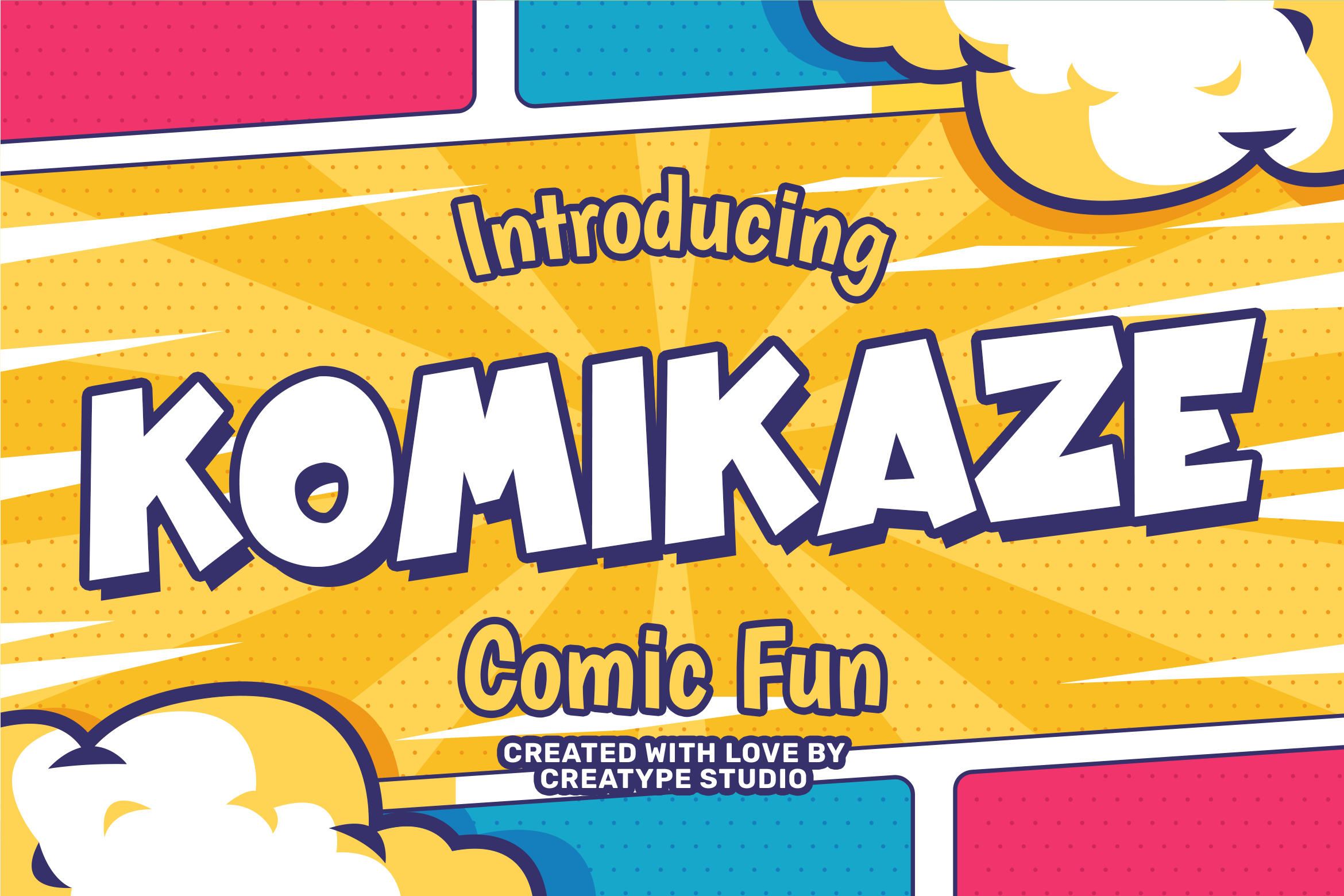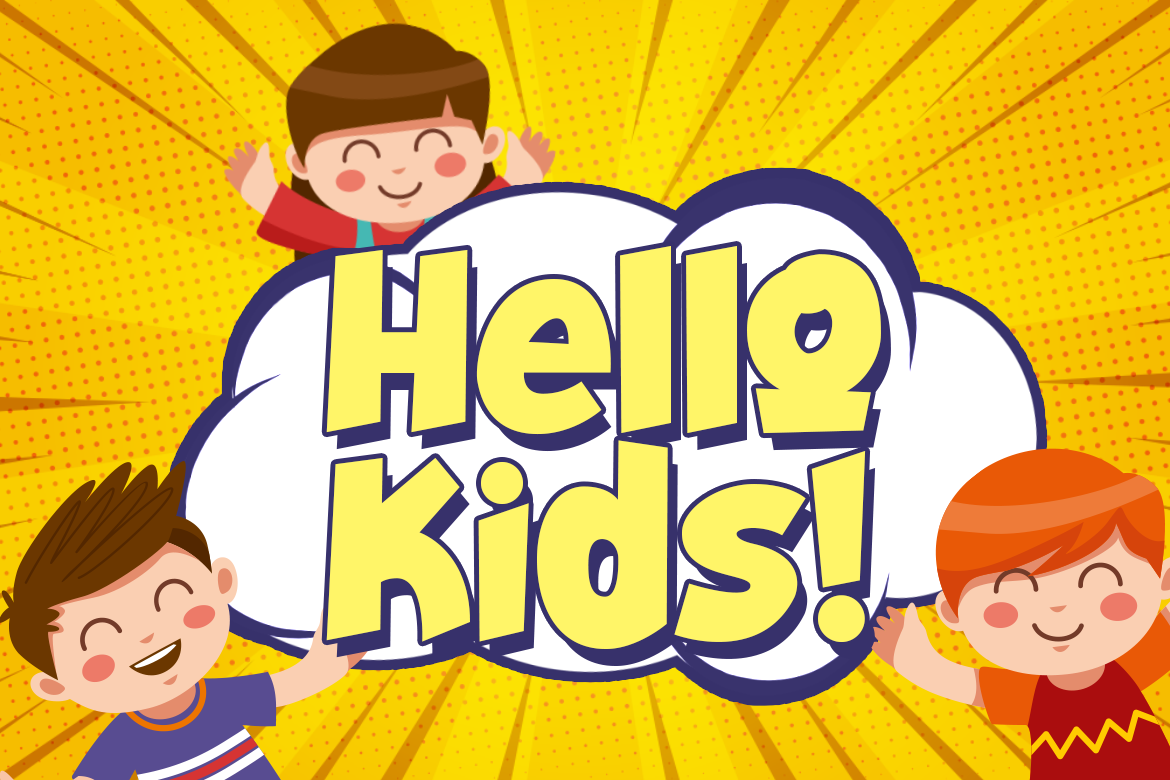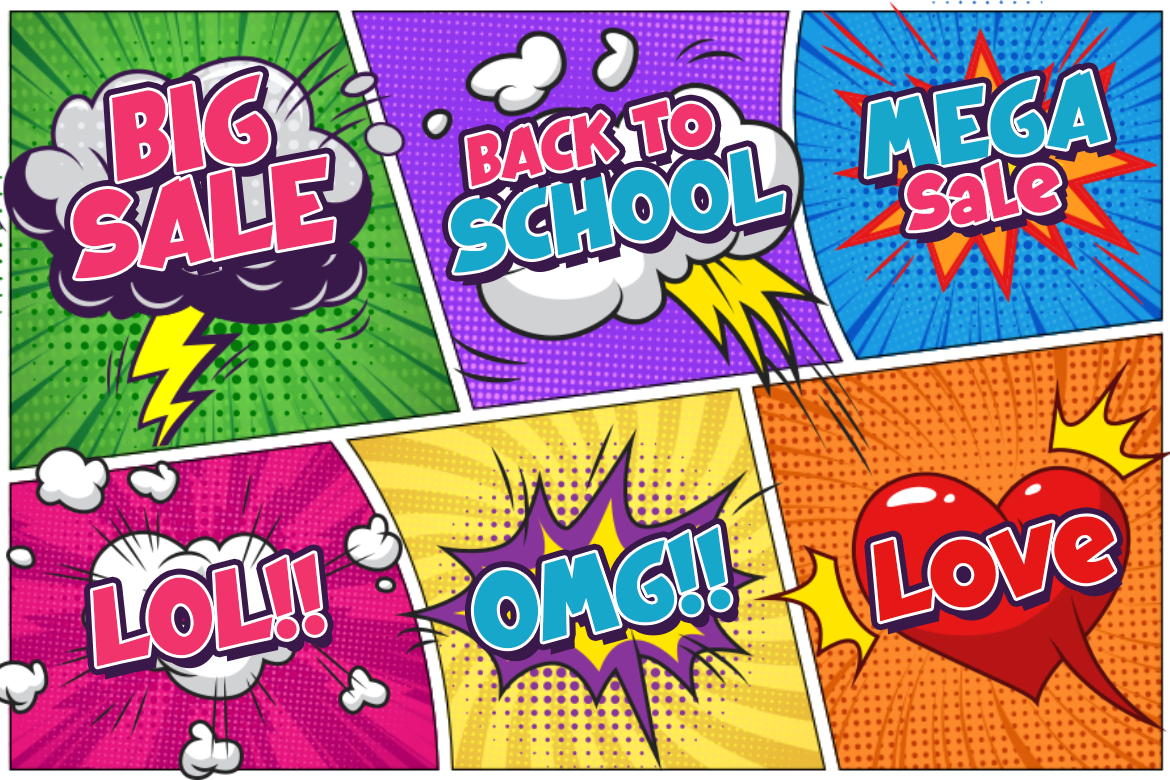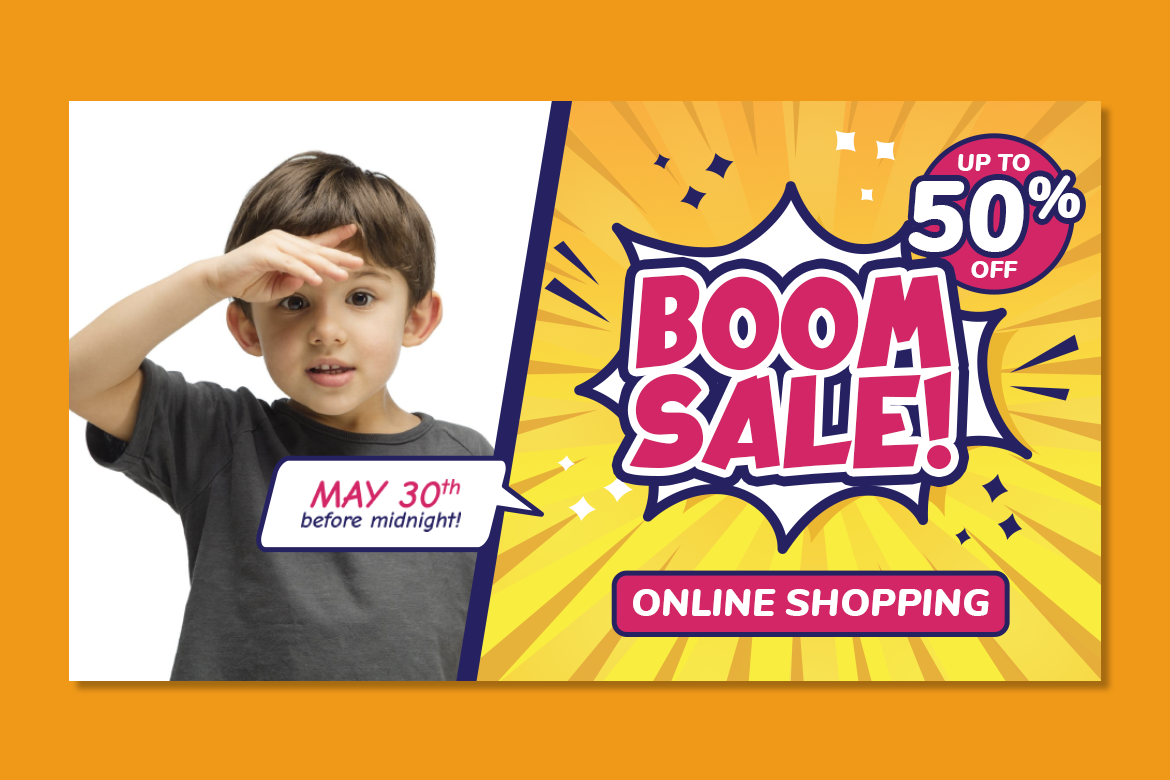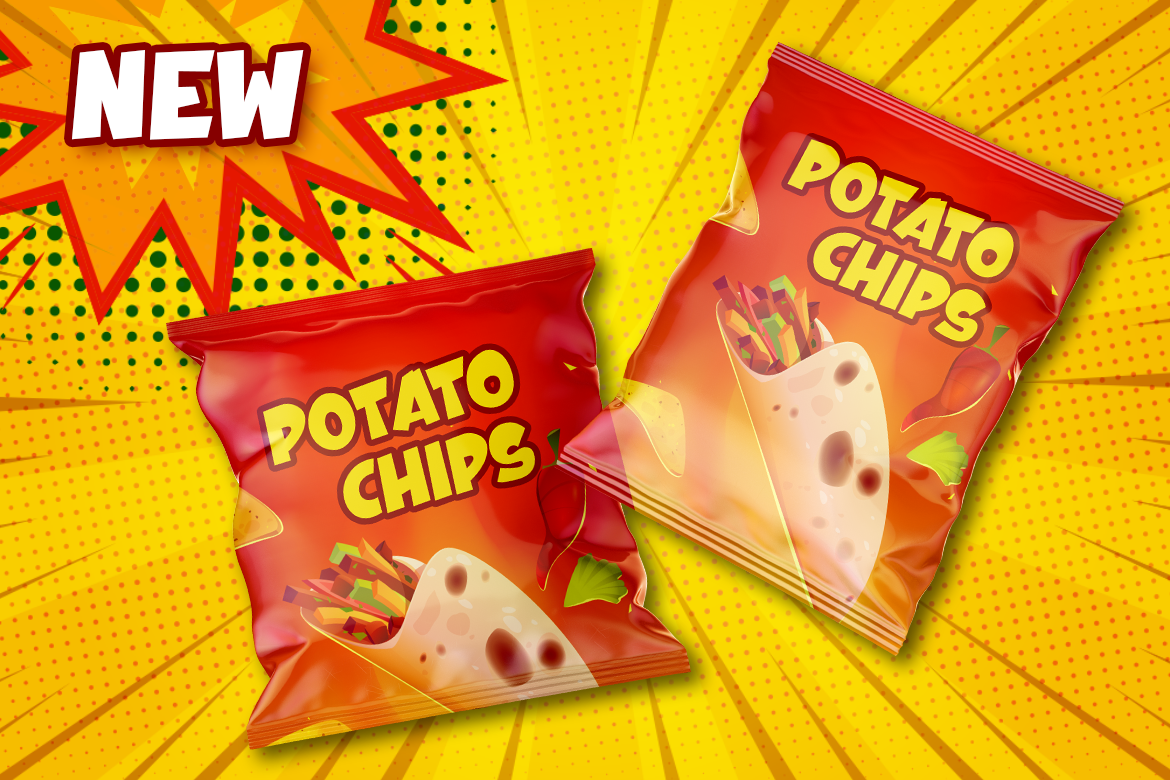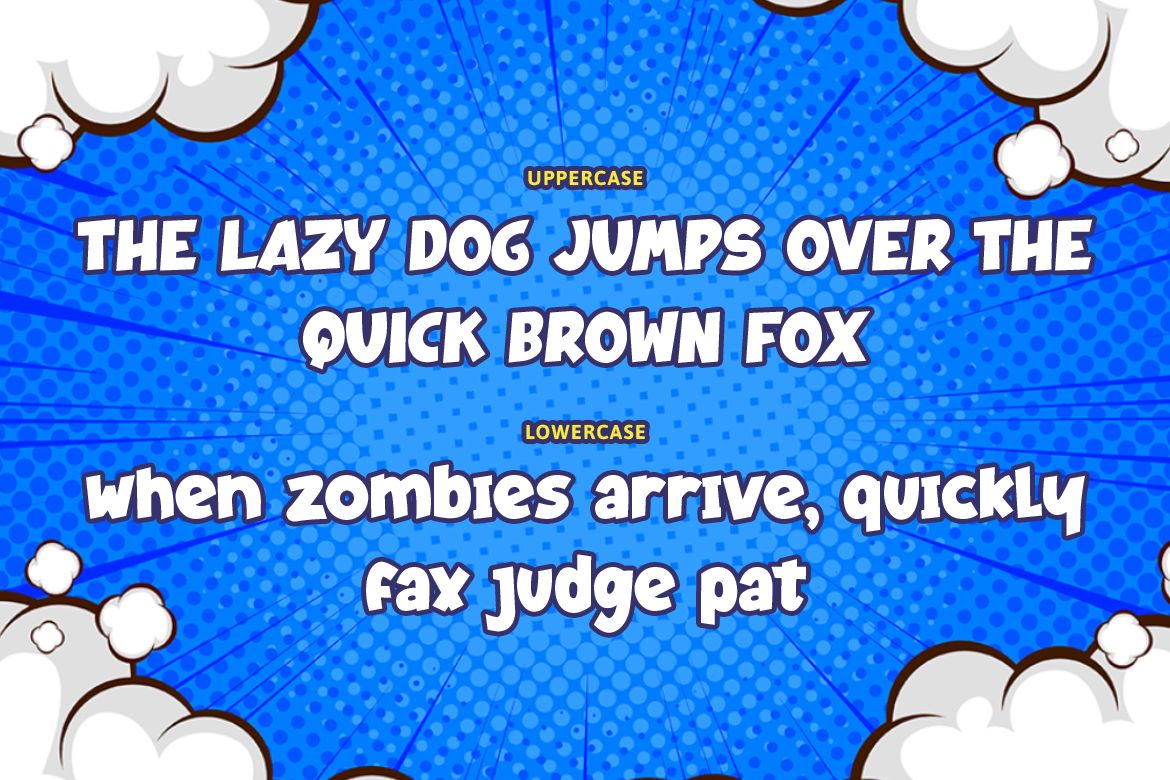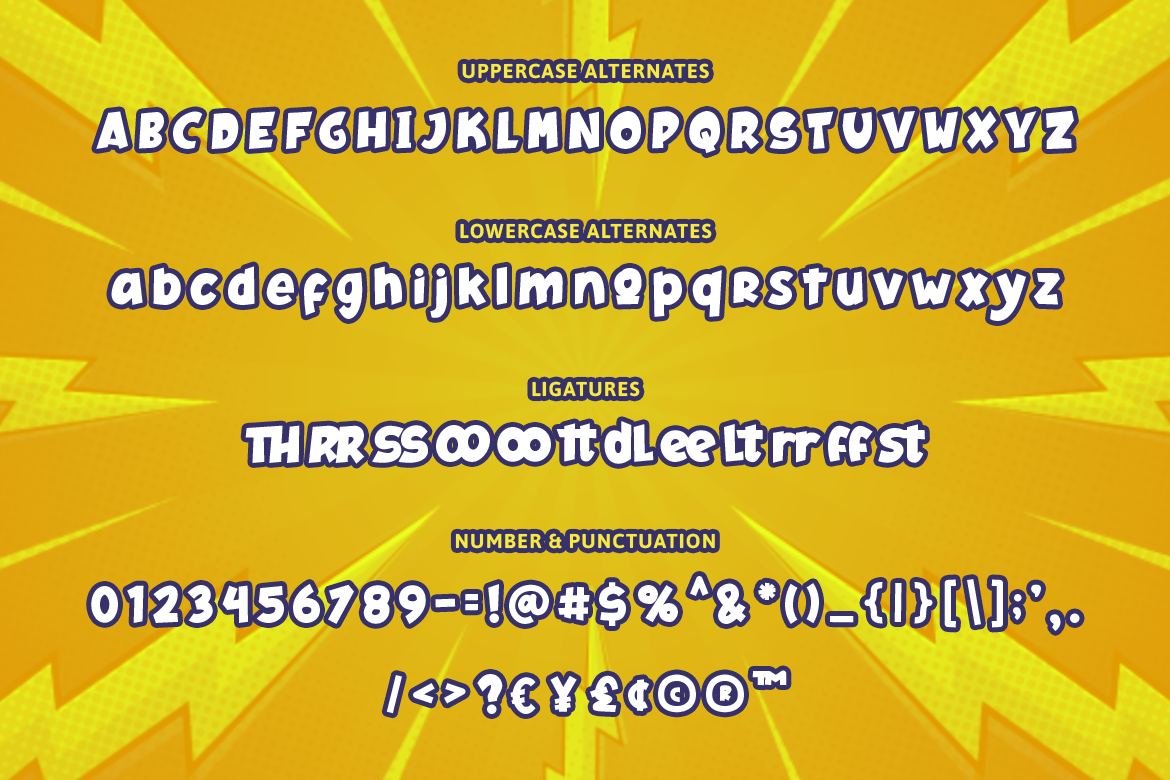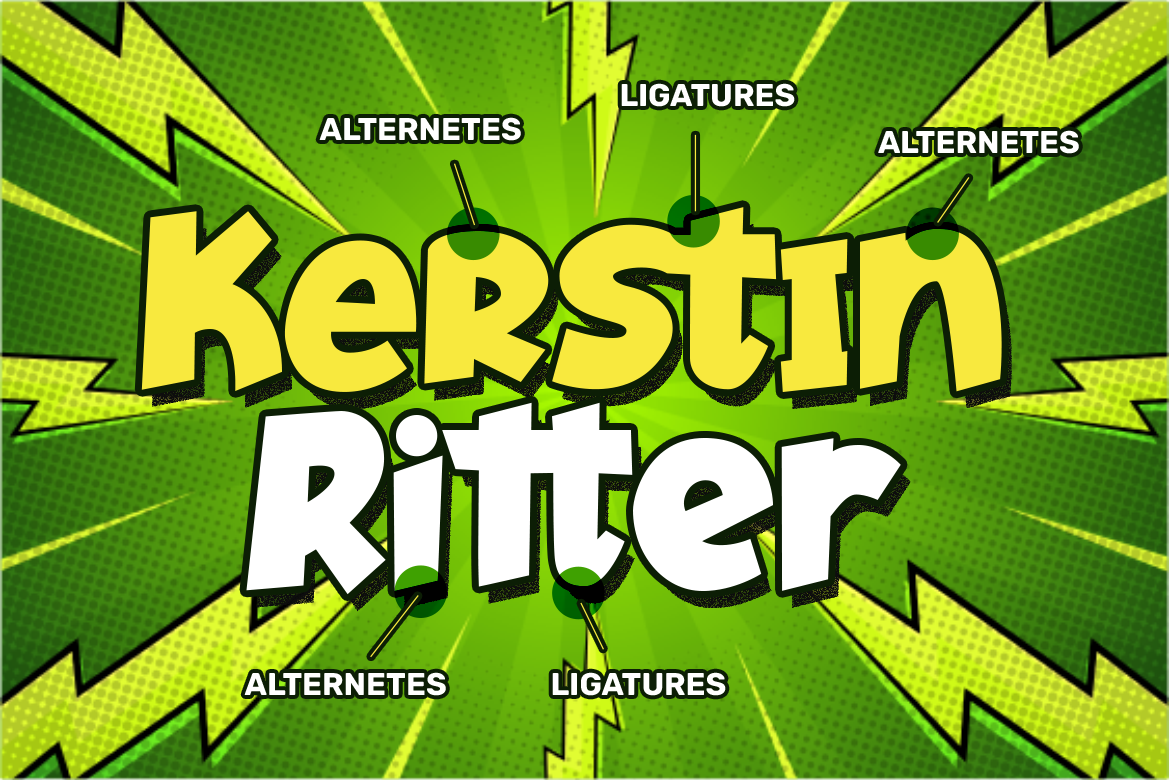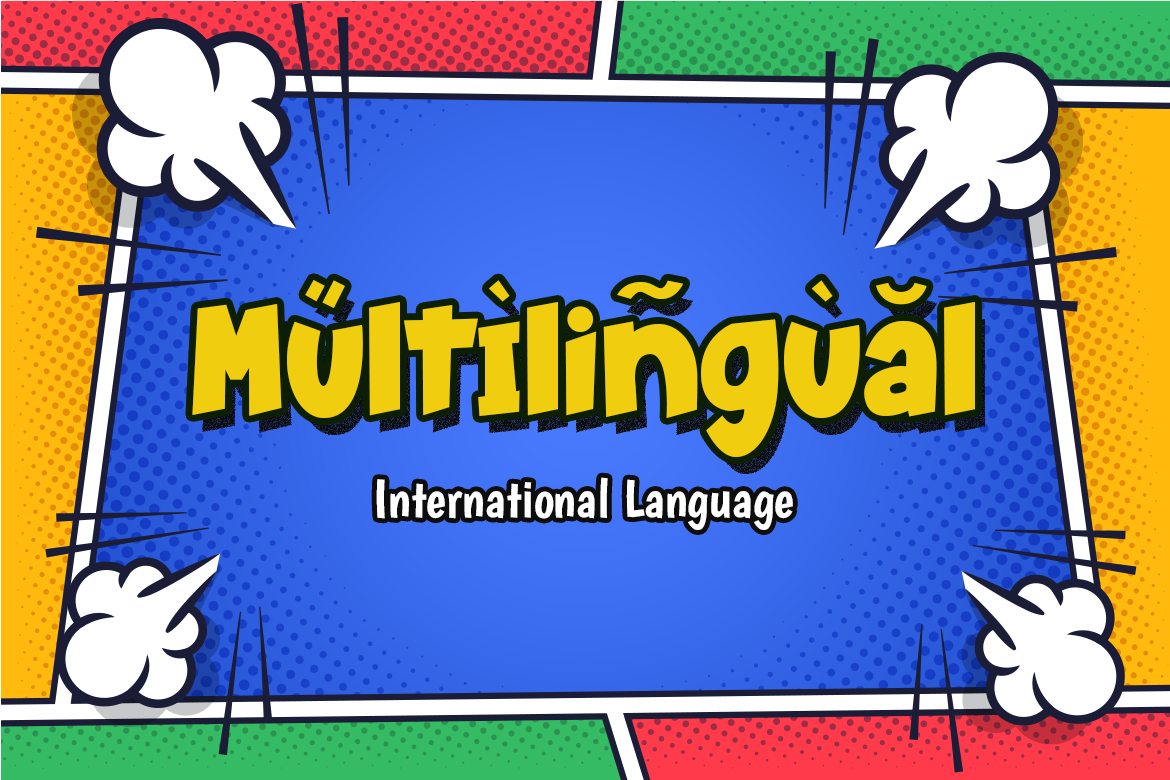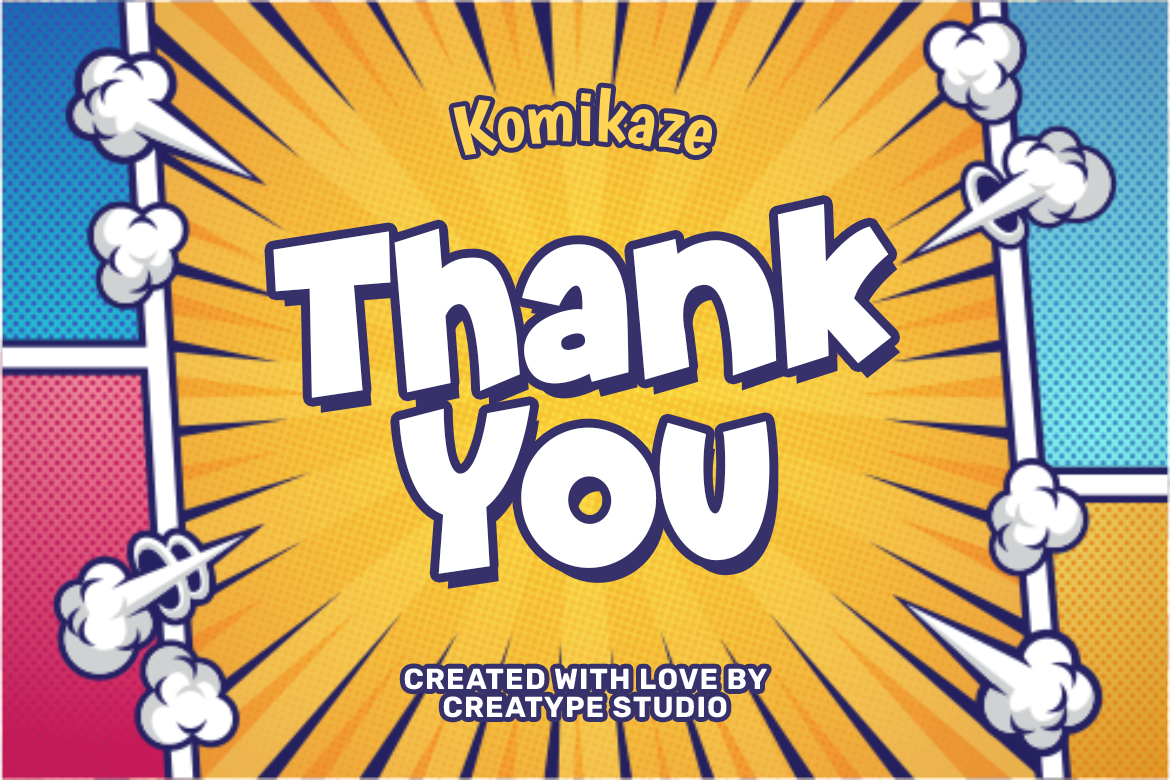
Komikaze Comic Fun
Komikaze is a creative typeface that could bring out the fun side of your design projects. Have fun playing with Komikaze!
Komikaze is perfect for branding projects, logo, wedding designs, social media posts, advertisements, product packaging, product designs, label, photography, watermark, invitation, stationery and any projects that need handwriting taste.
- Ligature & Alternate